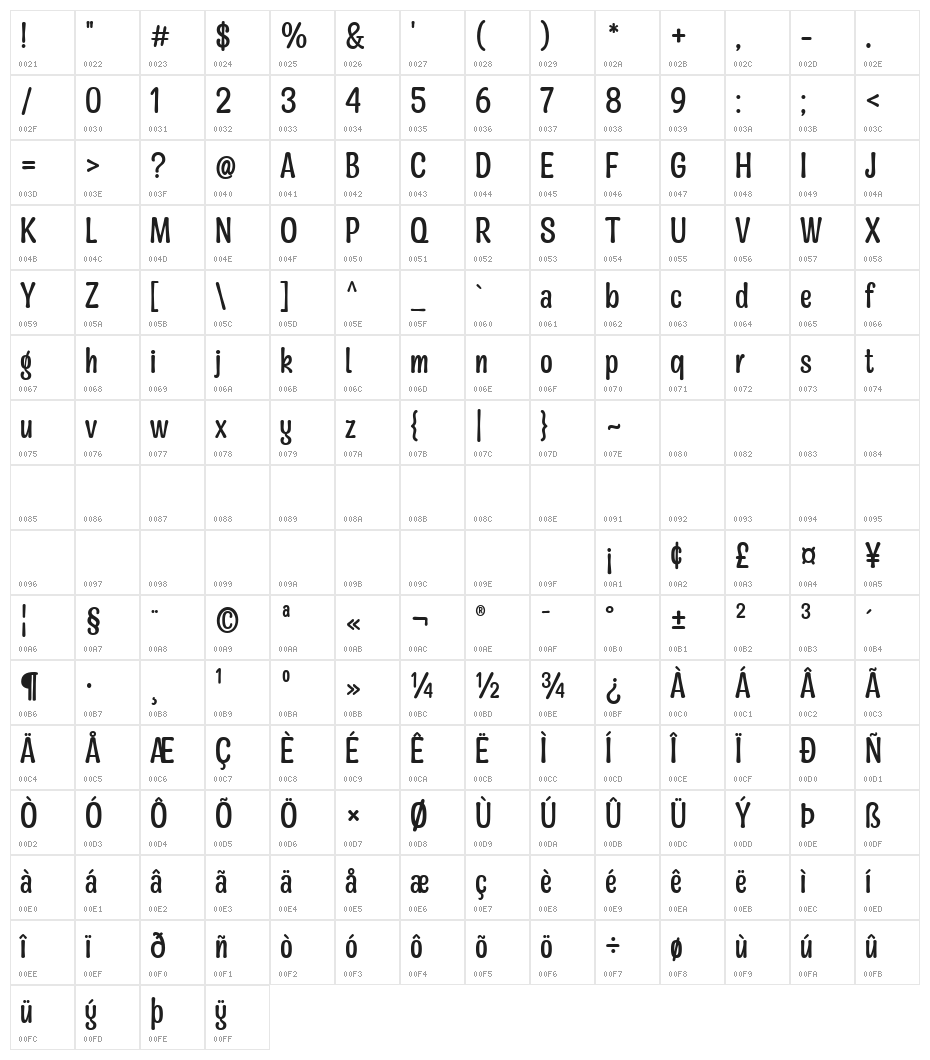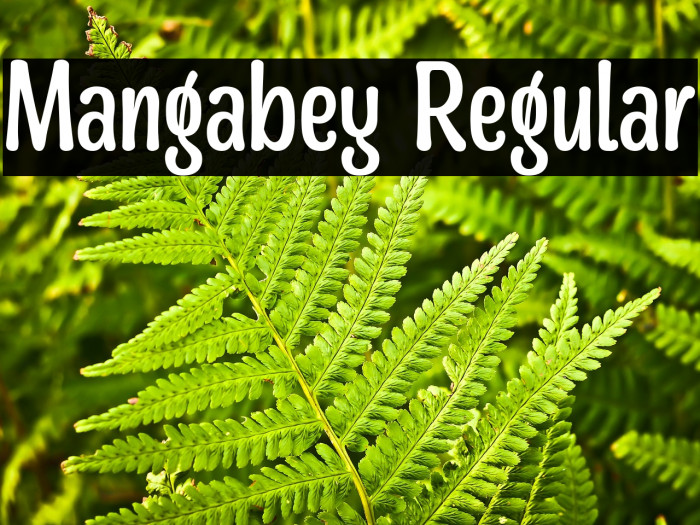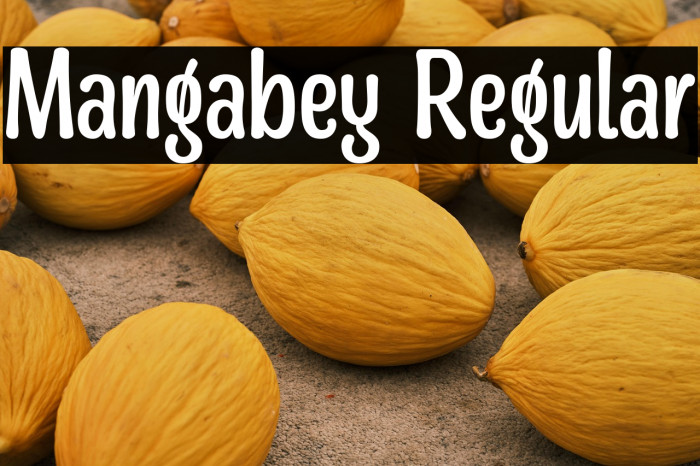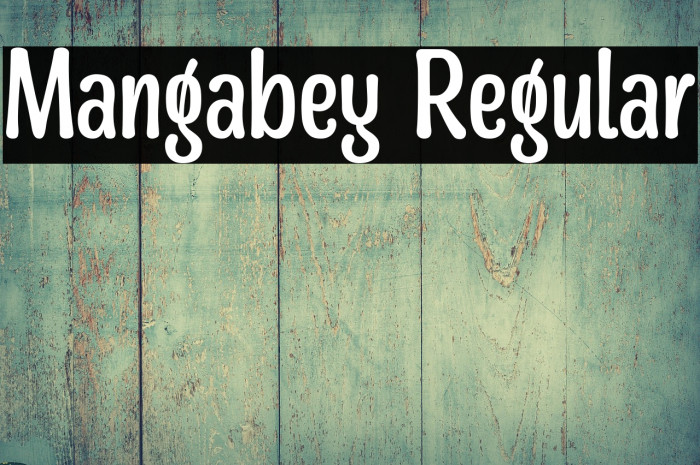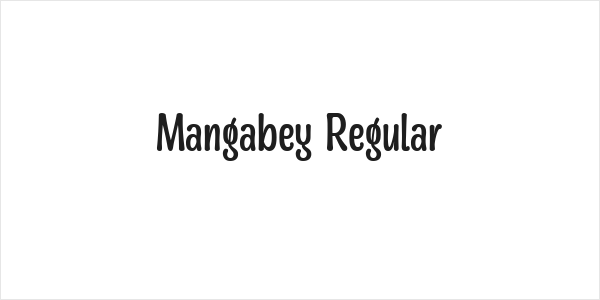
Mangabey Regular Font
Mangabey Regular Description
This font features a playful and rounded design, characterized by its smooth curves and friendly appearance. The letters are bold and have a consistent stroke width, giving them a uniform look. The uppercase characters are slightly taller than the lowercase, maintaining a balanced proportion. The numerals are clear and easy to read, matching the style of the alphabet. Special characters are well-integrated, maintaining the font's cohesive style. This font is versatile, suitable for both digital and print media, and can add a touch of whimsy to any project.